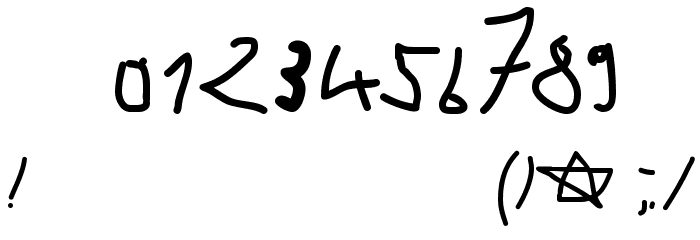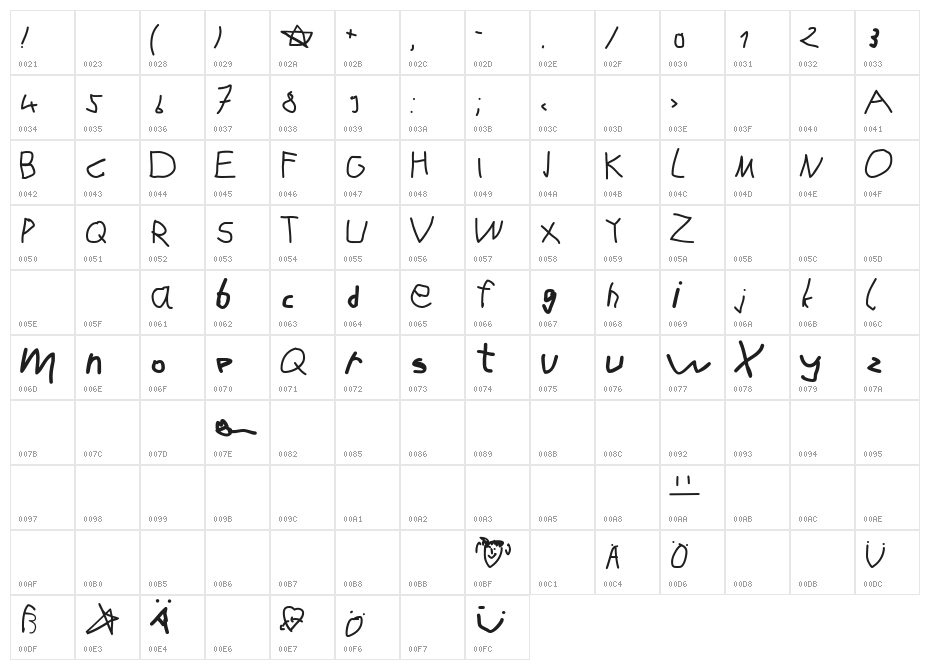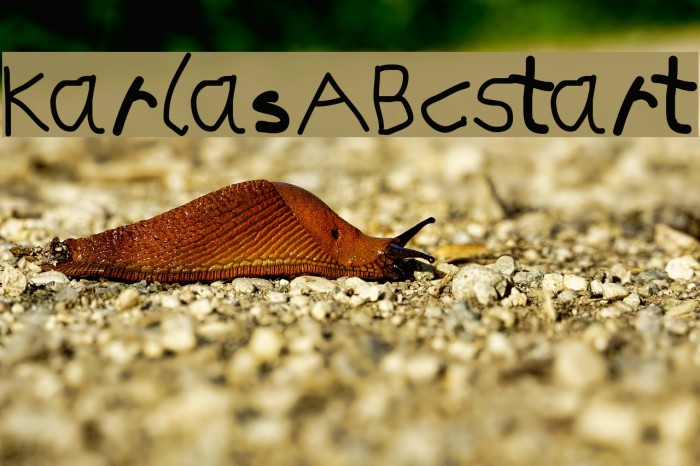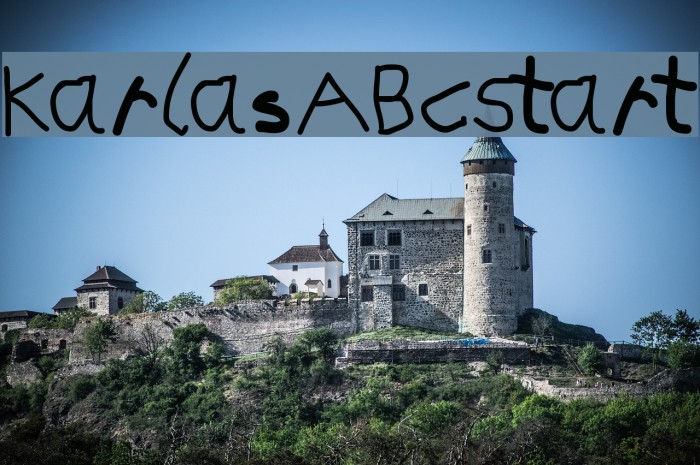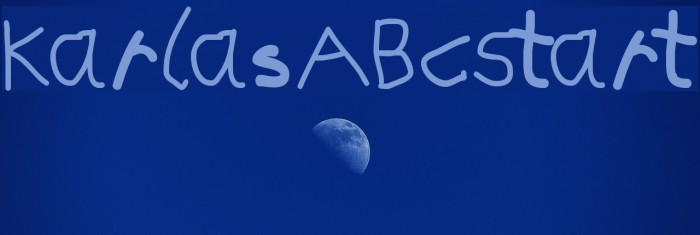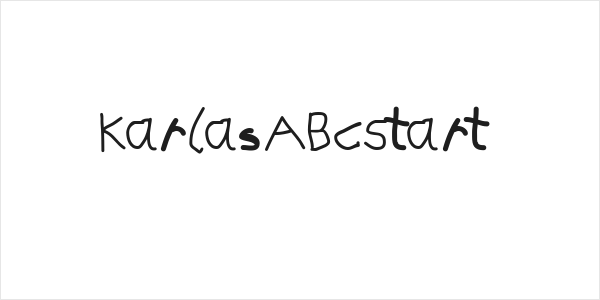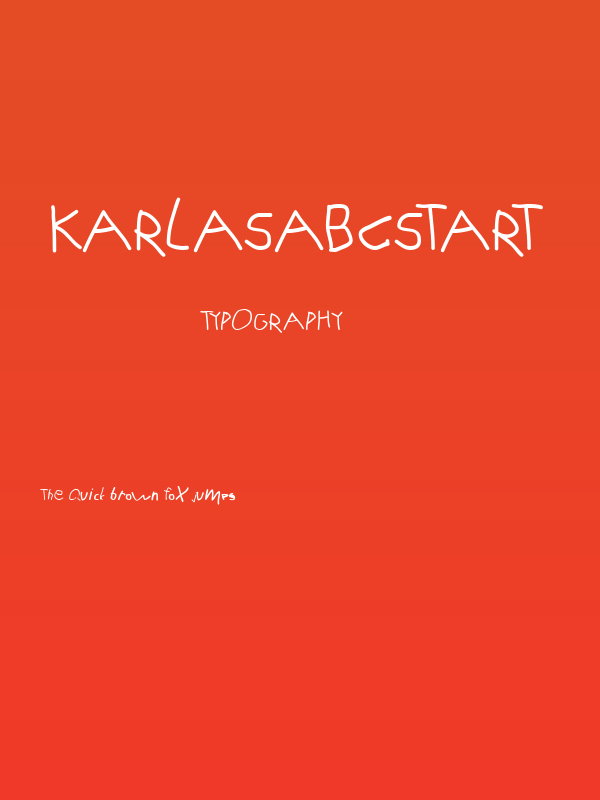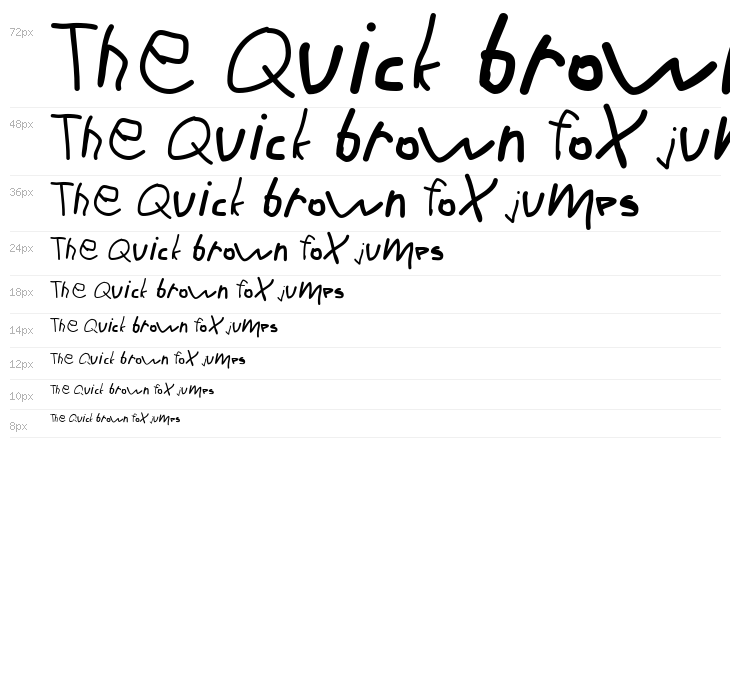
KarlasABCStart Font
KarlasABCStart Description
This font features a playful and informal handwritten style, characterized by its irregular and dynamic letterforms. The uppercase letters are slightly larger and more angular, while the lowercase letters exhibit a more rounded and fluid appearance. The numerals are quirky and maintain the playful essence of the font. Special characters are creatively styled, adding to the overall whimsical feel. The font's uneven stroke widths and varying character sizes contribute to its casual and approachable aesthetic, making it suitable for projects that require a personal touch.